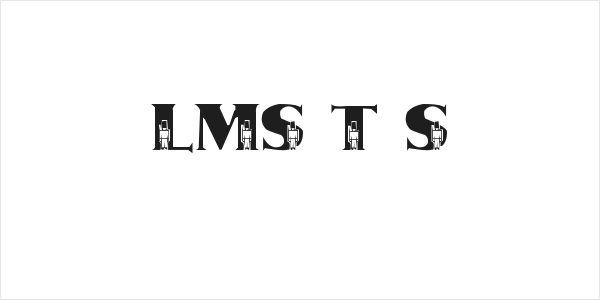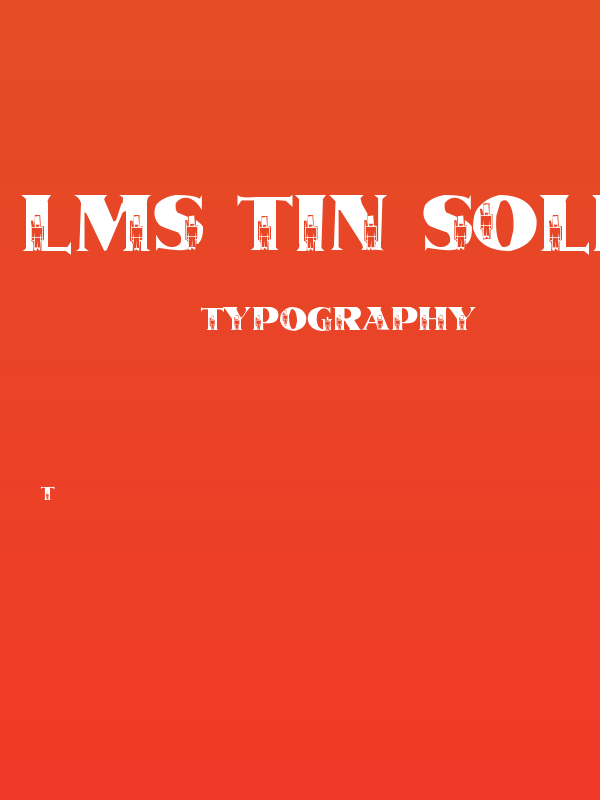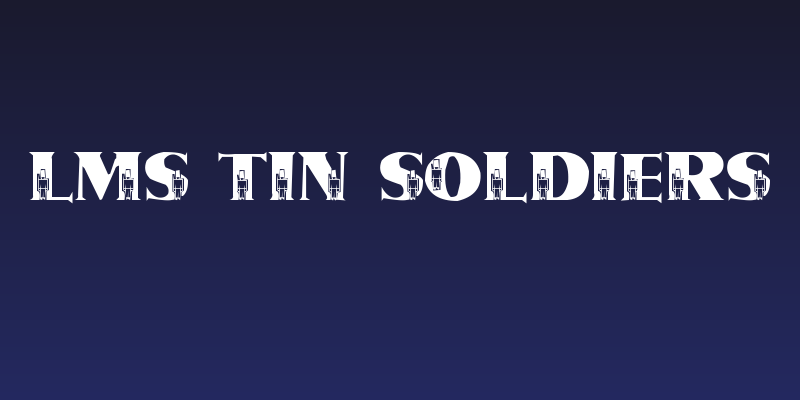
LMS Tin Soldiers Font
LMS Tin Soldiers Description
This font features a unique and playful design, incorporating elements reminiscent of toy soldiers within the letterforms. Each character is bold and distinct, with intricate details that add a decorative flair. The overall appearance is both whimsical and structured, making it stand out in any design project. The font is all uppercase, with consistent sizing and alignment, ensuring readability while maintaining its decorative nature. The inclusion of soldier motifs within the letters adds a thematic element that can be particularly appealing for projects related to childhood, play, or nostalgia.
| Proposed Projects | Ideal for children's book covers, playful branding, themed event invitations, or any project seeking a whimsical and nostalgic touch. |